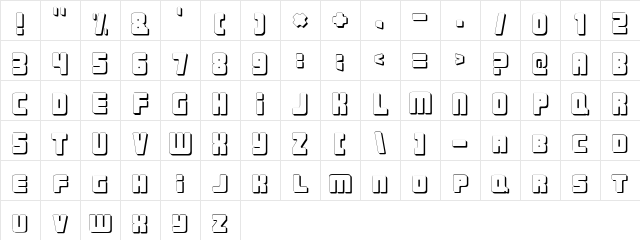
Urban Constructed Shadow
Style: Shadow
Foundry: Nils von Blanc (www.nils-von-blanc.de)
Designer: Nils von Blanc
Design Context for Urban Constructed
Urban Constructed is built around its visual character rather than neutral utility - its distinctive forms are designed to make an impression at display sizes.
Font Pairing: Pair with a clean neutral sans-serif for body copy to let Urban Constructed's character lead without overwhelming the composition.
Pro Tip: Use Urban Constructed exclusively at display sizes - it was designed to be seen, not read at length. Let a neutral companion handle body copy.